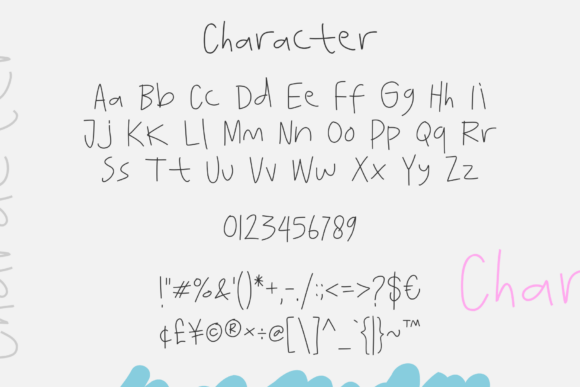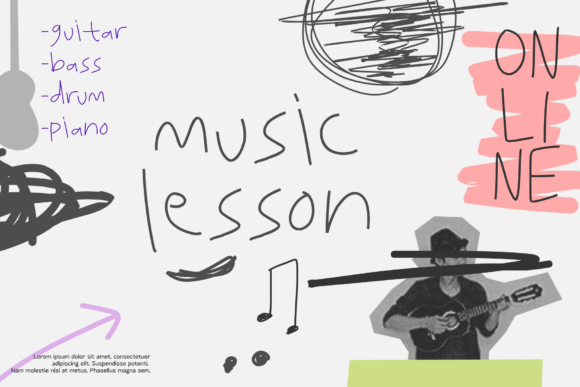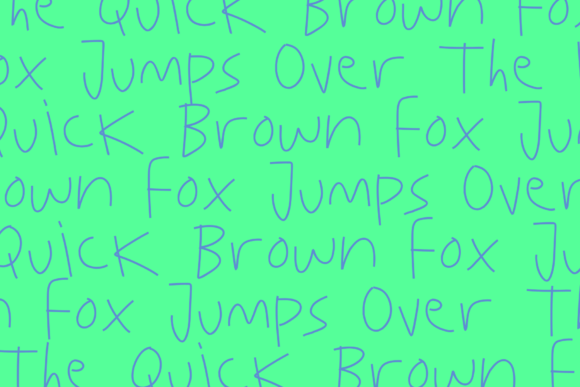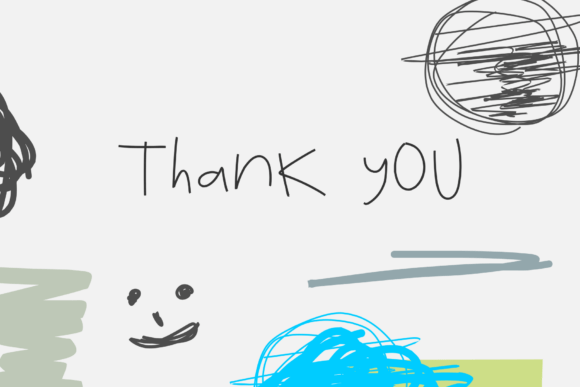
Introducing Garistipis Font: The Playful Charm Your Designs Need
Are you tired of using the same old fonts in your design projects? Look no further than Garistipis, a delightful one-line font that exudes playful charm and creativity. With its endearing resemblance to a child’s doodle, Garistipis brings an invigorating, visually arresting appeal to any design project. In this article, we’ll explore the features and benefits of Garistipis and why it’s the perfect choice for designers and crafters looking to add a touch of joy and whimsy to their work.
The Unique Design of Garistipis
Garistipis boasts a unique one-line design that is reminiscent of playful doodles. Its simplicity and carefree style make it an excellent choice for designers who want to add a touch of joviality to their projects. The font’s distinctive look is sure to capture the attention of your audience and leave a lasting impression. Whether you’re designing greeting cards, product labels, or packaging, Garistipis is the perfect font to make your project stand out.
Garistipis is a versatile font that can be used in a wide range of design projects. Its playful and cheerful style makes it ideal for:
- Greeting cards: Add a personal touch to your greeting cards with Garistipis’ whimsical design.
- Product designs: Give your product labels and packaging a fun and youthful look with Garistipis.
- Packaging labels: Make your product stand out on store shelves with Garistipis’ eye-catching design.
Key Features of Garistipis
So, what makes Garistipis so special? Here are some of its key features:
- Unique one-line design: Garistipis’ distinctive one-line design sets it apart from other fonts.
- Reminiscent of playful doodles: The font’s playful style is reminiscent of a child’s doodle, making it perfect for designs that require a touch of whimsy.
- Perfect for adding a touch of joviality: Garistipis is designed to add a touch of fun and playfulness to your designs.
Why Choose Garistipis?
With so many fonts to choose from, why should you choose Garistipis? Here are just a few reasons:
- Easy to read: Despite its playful design, Garistipis is easy to read, making it perfect for designs that require a clear and concise message.
- Versatile: Garistipis can be used in a wide range of design projects, from greeting cards to product labels.
- Unique: Garistipis’ distinctive design ensures that your project will stand out from the crowd.
How to Use Garistipis in Your Designs
Using Garistipis in your designs is easy. Here are a few tips to get you started:
- Pair with other fonts: Pair Garistipis with other fonts to create a unique and visually appealing design.
- Experiment with colors: Garistipis looks great in a variety of colors, so don’t be afraid to experiment and find the perfect hue for your design.
- Keep it simple: Garistipis is a simple font, so keep your design simple and clean to ensure that the font is the focus.
Garistipis is a delightful one-line font that is sure to bring a touch of joy and whimsy to your design projects. With its unique design, versatility, and ease of use, Garistipis is the perfect choice for designers and crafters looking to add a touch of playfulness to their work. So why not give Garistipis a try and see how it can elevate your designs?
Whether you’re a seasoned designer or a crafty DIY enthusiast, Garistipis is sure to become a favorite in your font collection. So go ahead, get creative, and let Garistipis infuse your projects with an atmosphere of joy and sunshine, making your designs truly stand out.